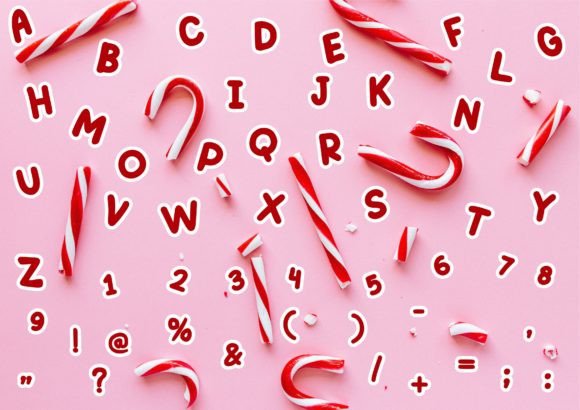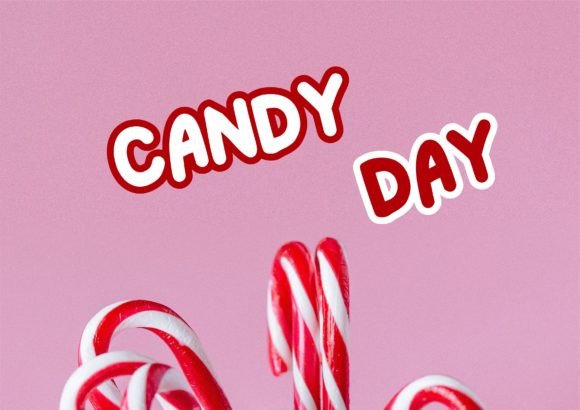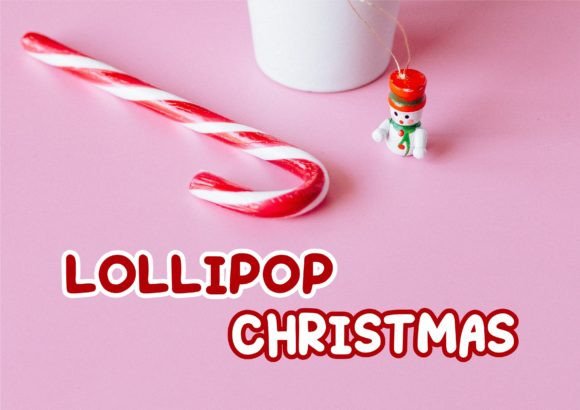
Cute Candy Font: The Sweetest Addition to Your Design Collection
Are you a designer or crafter looking for a unique and playful font to add to your collection? Look no further than the Cute Candy Font! This adorable display font is perfect for creating a variety of candy-themed designs, from t-shirts to posters and digital art. In this article, we’ll take a closer look at the Cute Candy Font and explore its features, benefits, and uses.
What is Cute Candy Font?
Cute Candy Font is a one-of-a-kind display font that is designed to bring a touch of sweetness to your designs. Its playful and whimsical style makes it perfect for creating eye-catching and engaging designs that are sure to stand out. The font features bold, rounded letters with a sugary sweet aesthetic that is reminiscent of candy and treats.
Features of Cute Candy Font
So, what makes Cute Candy Font so special? Here are just a few of its key features:
- Unique and playful design: The Cute Candy Font features a one-of-a-kind design that is sure to add a touch of personality to your designs.
- Perfect for candy-themed designs: The font’s sugary sweet aesthetic makes it perfect for creating candy-themed designs, from t-shirts to posters and digital art.
- Easy to read and use: Despite its playful design, the Cute Candy Font is easy to read and use, making it perfect for a variety of design applications.
- Scalable and versatile: The font is highly scalable and versatile, making it perfect for use in a variety of design applications, from small icons to large posters.
Benefits of Using Cute Candy Font
So, why should you choose the Cute Candy Font for your designs? Here are just a few of the benefits of using this adorable font:
- Adds a touch of personality to your designs: The Cute Candy Font is sure to add a touch of personality and whimsy to your designs, making them stand out from the crowd.
- Perfect for creating eye-catching designs: The font’s bold and playful design makes it perfect for creating eye-catching and engaging designs that are sure to grab attention.
- Easy to use and customize: The Cute Candy Font is easy to use and customize, making it perfect for designers and crafters of all skill levels.
- Versatile and scalable: The font is highly versatile and scalable, making it perfect for use in a variety of design applications.
Uses for Cute Candy Font
So, what can you use the Cute Candy Font for? Here are just a few ideas to get you started:
- T-shirt designs: The Cute Candy Font is perfect for creating adorable t-shirt designs that are sure to stand out.
- Posters and flyers: The font’s bold and playful design makes it perfect for creating eye-catching posters and flyers.
- Digital art and graphics: The Cute Candy Font is perfect for adding a touch of personality to your digital art and graphics.
- Crafting and DIY projects: The font is also perfect for use in crafting and DIY projects, such as scrapbooking and card making.
| Font Name | Cute Candy Font |
| Author | Mas Edit |
In conclusion, the Cute Candy Font is a unique and adorable display font that is perfect for adding a touch of sweetness to your designs. Its playful and whimsical style makes it perfect for creating eye-catching and engaging designs that are sure to stand out. Whether you’re a designer or crafter, the Cute Candy Font is sure to become a favorite in your collection.